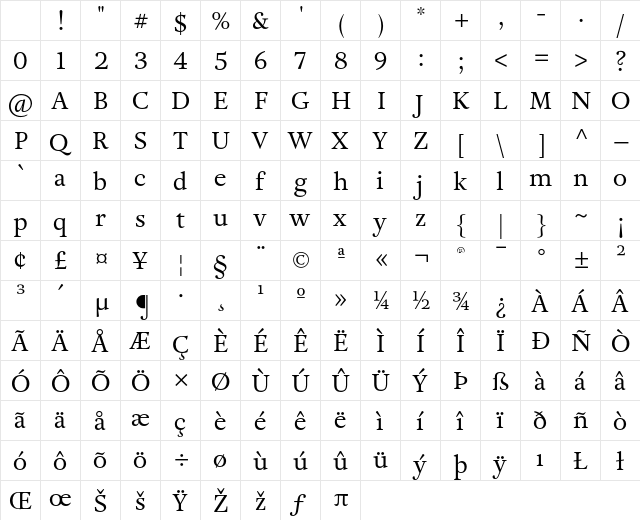
Complete Adriane Text Regular glyph index. Displaying only characters natively supported by Adriane Text Regular font.
Adriane Text is a composed and adaptable typeface that performs quietly and consistently across a wide range of design contexts.